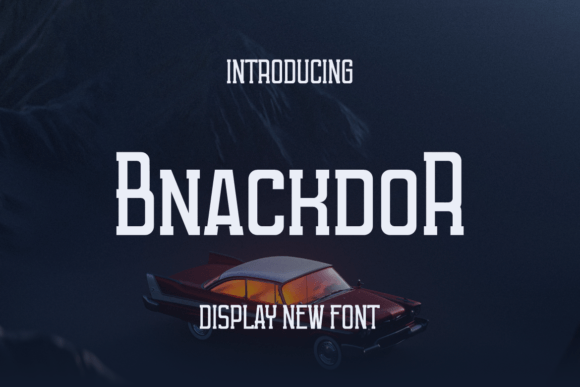
Unlock Your Creative Potential with the Bnackdor Font
Have you ever stared at a blank canvas, unsure of where to start, only to have a spark of inspiration strike when you stumble upon the perfect font? This is exactly what happened to many designers when they discovered the Bnackdor Font – a game-changing display font that elevates any creative project to the next level.
Whether you’re a graphic designer, artist, or writer, the Bnackdor Font is an invaluable asset to your font library. Its unique, stylish, and modern design makes it perfect for a wide range of applications, from headings and titles to logos and brand identities.
With the Bnackdor Font, you’ll have the power to add a touch of sophistication and creativity to your work, setting you apart from the crowd and taking your designs to new heights.
Bnackdor Font Key Features
- Unique Characteristics: Bnackdor Font features a unique blend of modern and vintage elements, making it suitable for a wide range of creative projects.
- Font Style: Bnackdor Font is available in both Regular and Bold styles, providing versatility for various design applications.
Bnackdor Font Review
Overall, I have mixed feelings about the Bnackdor Font. While it has some great features, it also has some limitations that might make it less desirable for certain projects.
- Unique style: The Bnackdor Font has a distinct, modern aesthetic that’s perfect for projects that need a touch of sophistication.
- Good legibility: The font is clear and easy to read, making it suitable for body text or headlines.
- Wide language support: The font supports a wide range of languages, making it a great choice for international projects.
- Not ideal for small text: Due to its modern design, the Bnackdor Font can be difficult to read at small font sizes.
- Limited availability: The font is not as widely available as some other fonts, which can make it harder to use in certain projects.
- Not suitable for playful projects: The Bnackdor Font’s sophisticated design might not be the best fit for projects that need a more playful or casual tone.
In conclusion, the Bnackdor Font is a solid choice for projects that require a modern, sophisticated look. However, it may not be the best fit for every project, and its limitations should be carefully considered before making a decision.
Tips for Getting the Most Out of Bnackdor Font
Use Bnackdor Font for titles, headings, and other prominent text elements to create a bold and eye-catching design.
Pair Bnackdor Font with other fonts to create a unique and visually appealing typography.
Experiment with different font sizes, colors, and styles to achieve the desired effect.
Bnackdor Font is suitable for a wide range of designs, including:
Business cards, letterheads, and other marketing materials.
Branding and identity design, such as logos and icons.
Web design, including headings and titles.
Avenir is a geometric sans-serif font designed by Adrian Frutiger. It is known for its clean and modern lines, making it a popular choice for designers. Avenir is ideal for use in branding materials, logos, and digital products.